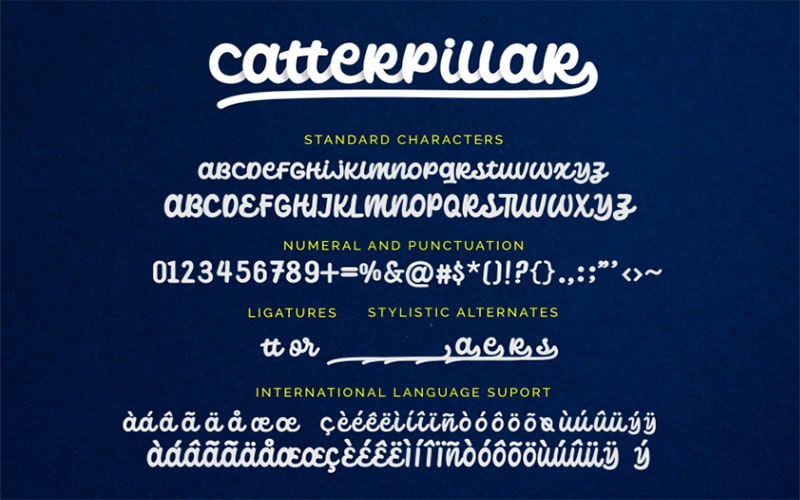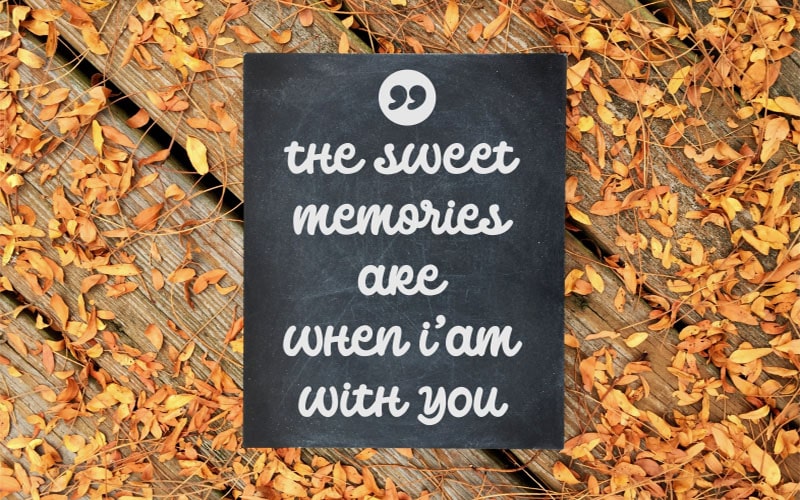
Catterpillar Font is a stunning typeface that captures the essence of elegance and versatility. This Font is the brainchild of a talented designer studio known for her creative and intricate typography, Zeenesia Studio.
Based in Indonesia, Zeenesia is the founder of the popular graphic design studio, Tokokoo. His work often blends traditional and modern elements, resulting in typefaces that are both timeless and contemporary.
This is a prime example of his expertise, offering a unique blend of classic calligraphy and modern design aesthetics. This is a script-typeface that exudes a sophisticated and elegant vibe.
It is designed to be versatile, making it suitable for various design projects. It comes in various styles such as regular, Bold, Italic, and outline.
Catterpillar Font
It features fluid, calligraphic strokes that convey sophistication. Includes a wide range of characters, punctuation, and symbols. Suitable for a variety of design applications, both print and digital.
Meticulously crafted with attention to detail for a professional appearance. Offers alternative characters and glyphs for more design flexibility.
Includes ligatures that enhance the fluidity and connectivity of the script. Supports multiple languages, making it accessible for global use.